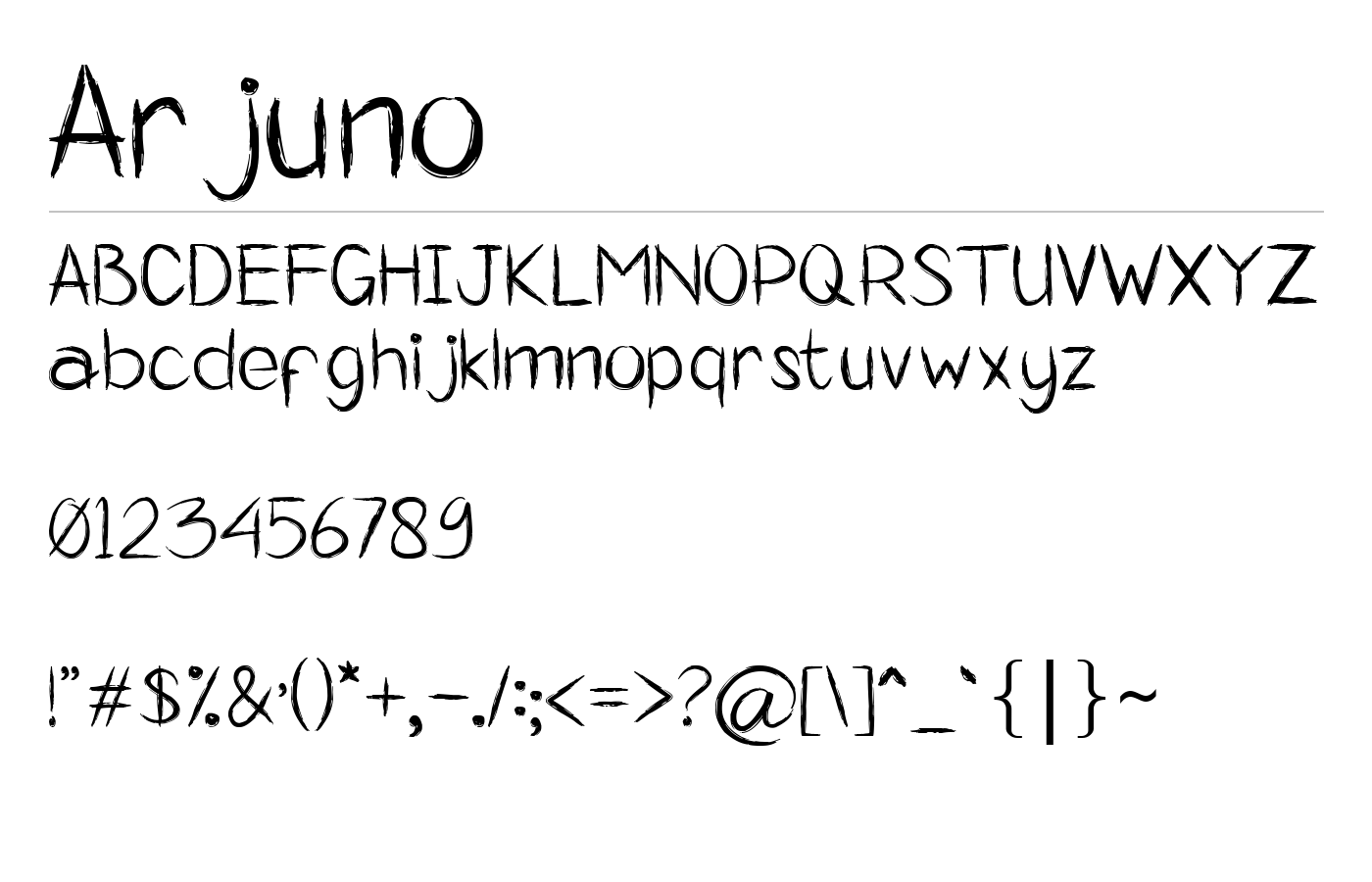
Arjuno is a playful hand-drawn sans serif font with an organic, textured feel that mimics brush strokes. Its irregular lines and lively character shapes give it a casual, artistic personality, perfect for creative projects, children’s designs, or informal branding. This font works well for headlines, logos, and expressive editorial layouts where a unique and approachable style is desired.
Arjuno Font